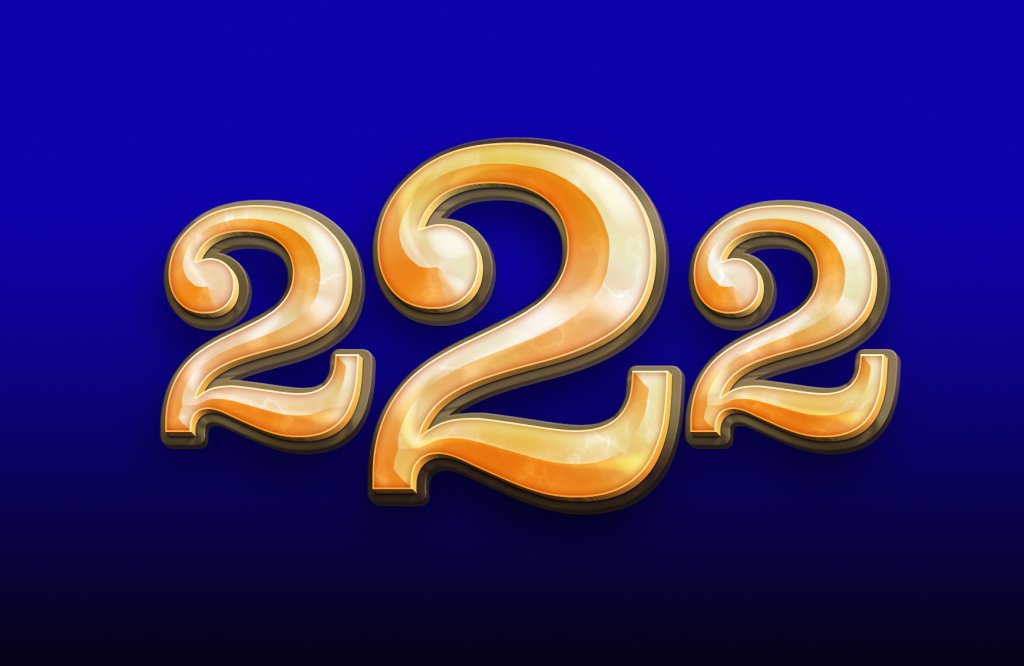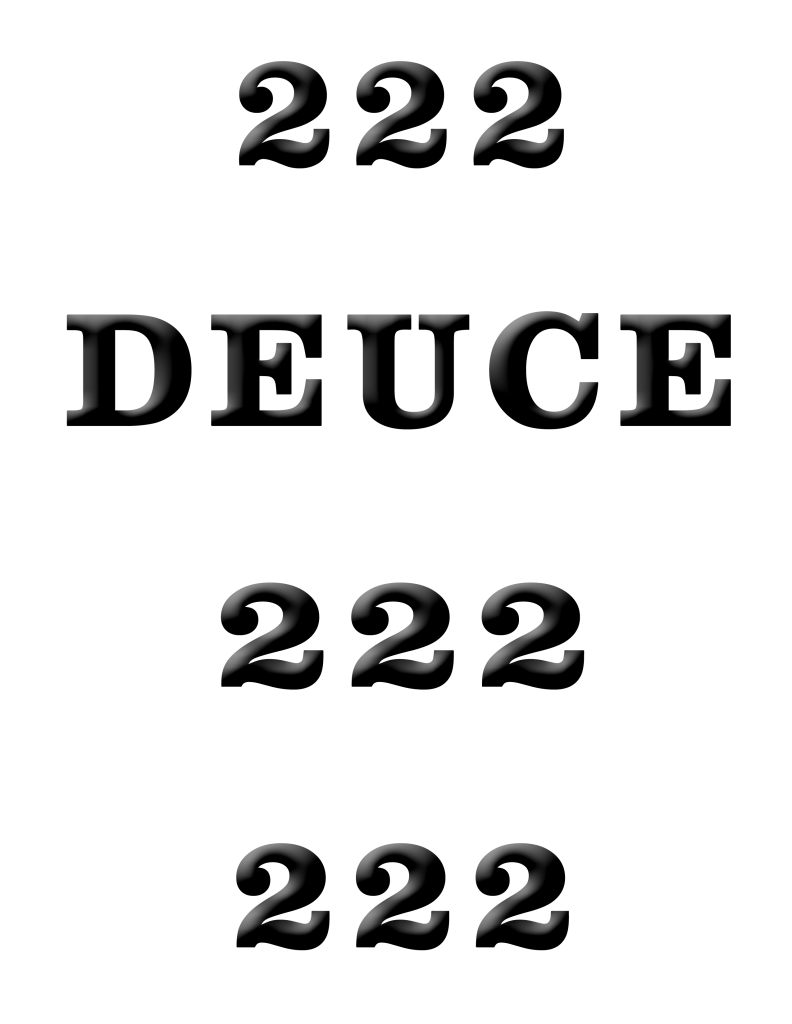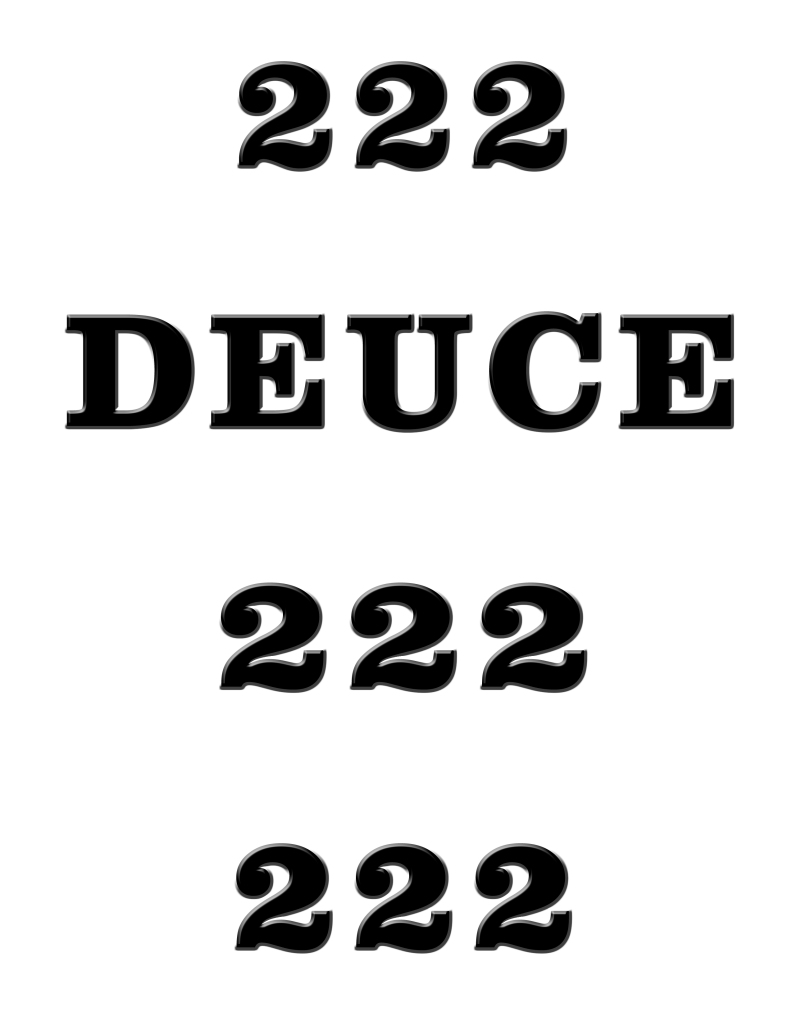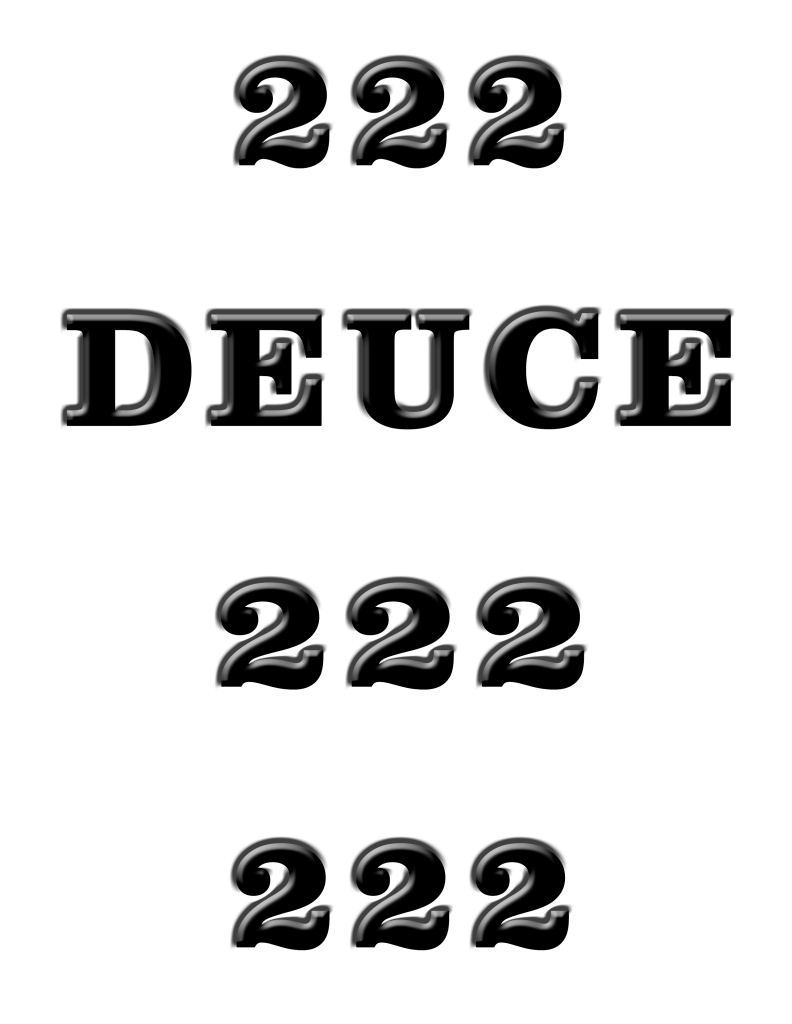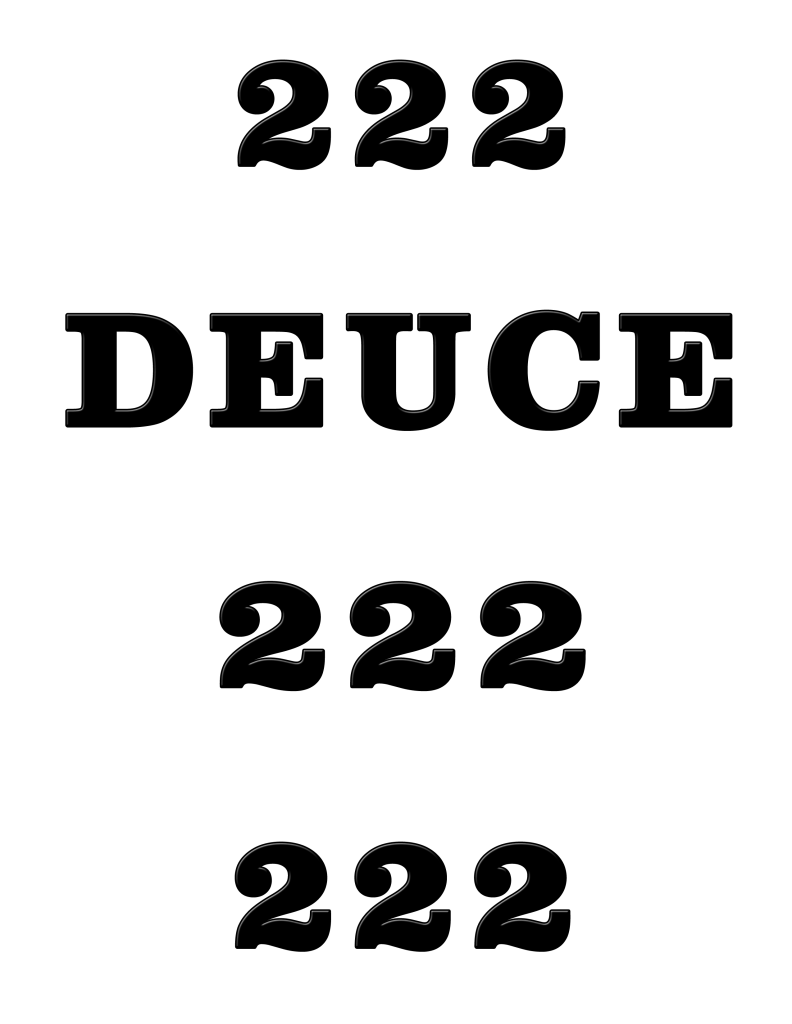
Can anyone help provide me with me the font and just a quick png of “222” using the “777” font you see on slot machines?
In addition, what’s the font used on “LUCKY”? Reminds me of Lucas Art.